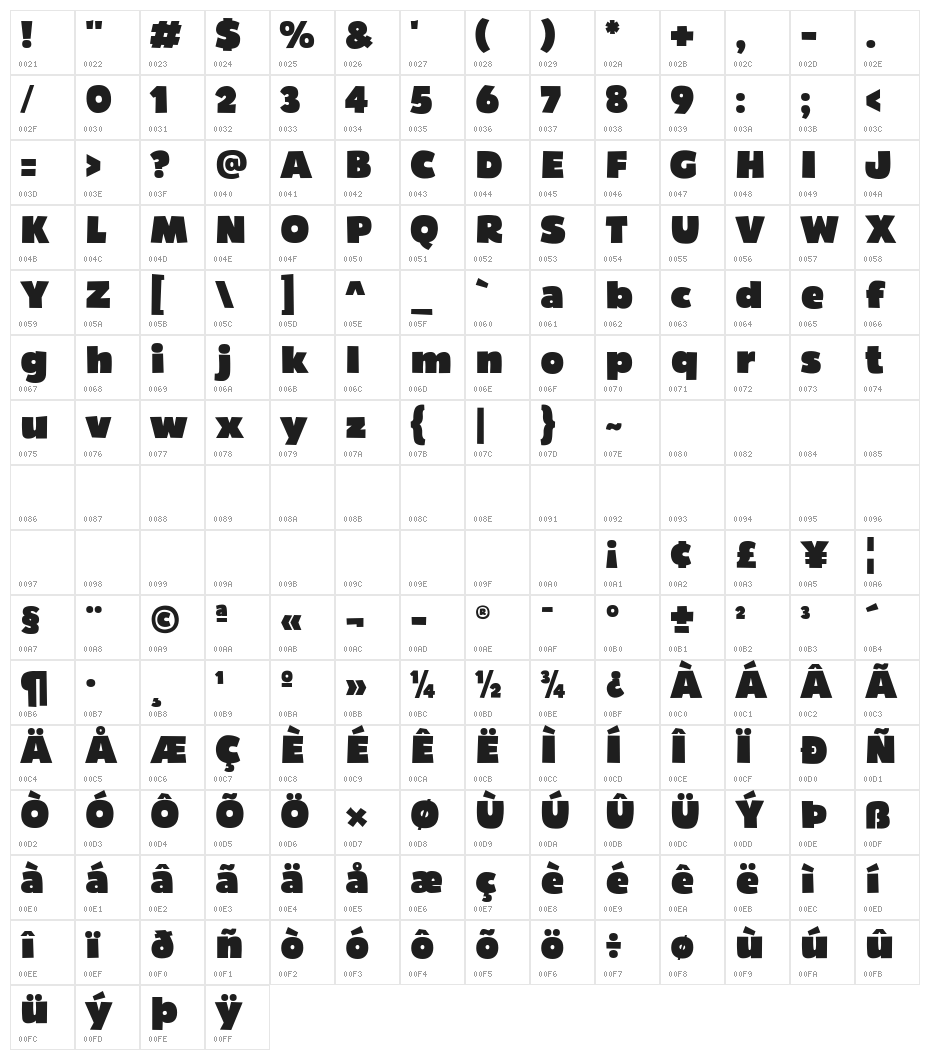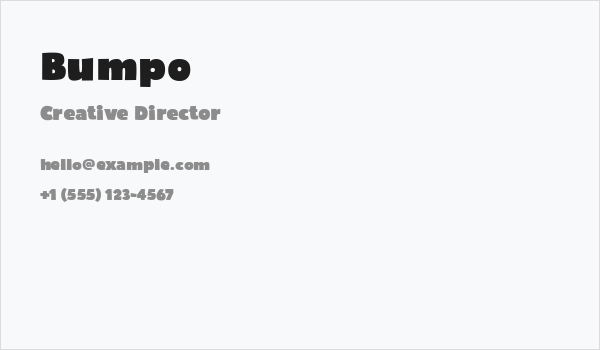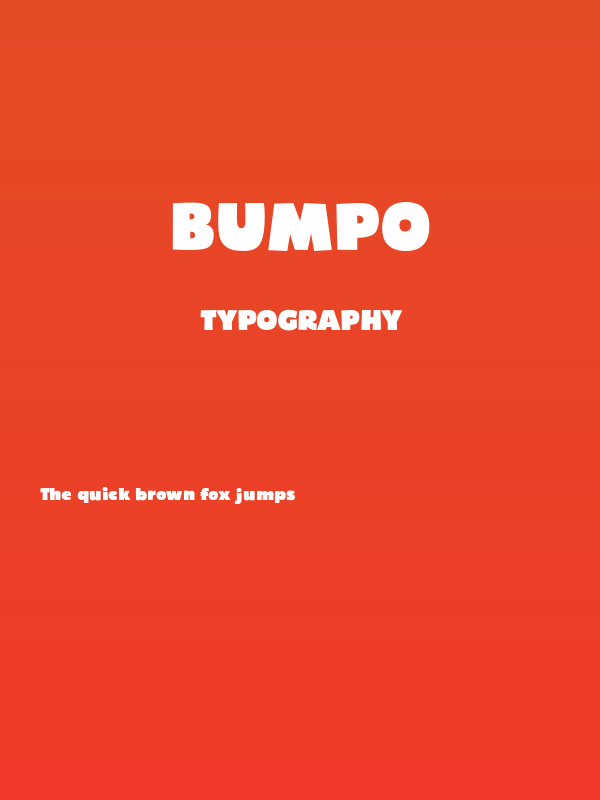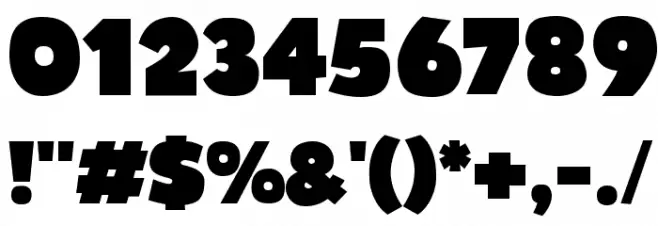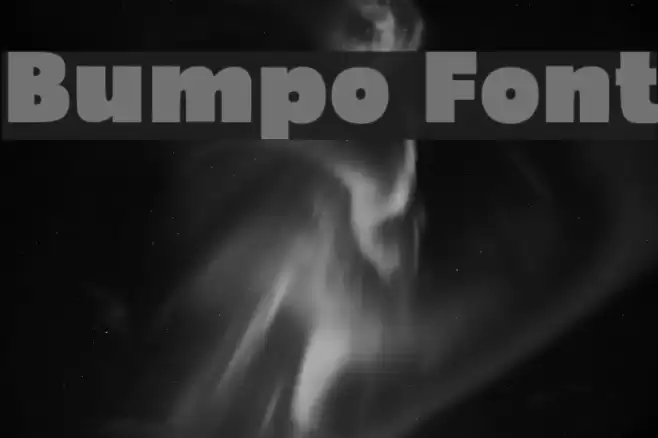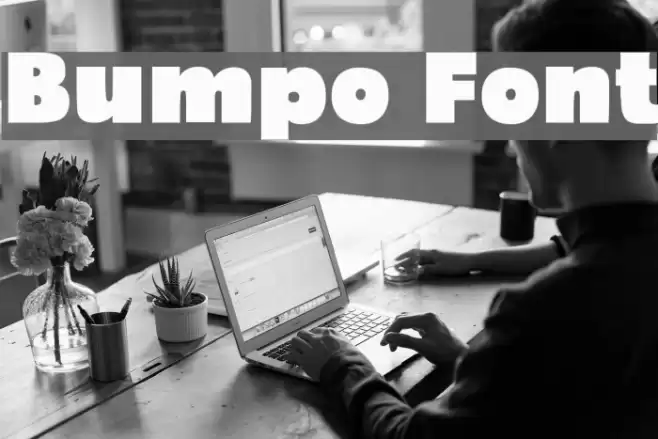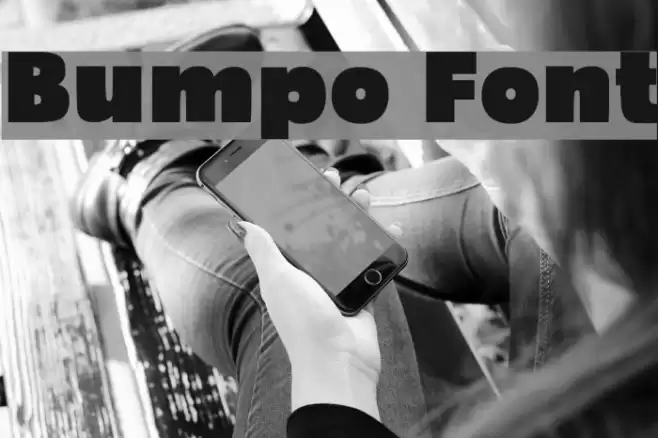
Bumpo Font
Bumpo Description
This font features bold, rounded characters with a strong presence, making it ideal for attention-grabbing headlines and titles. The uppercase and lowercase letters maintain a consistent weight, contributing to a cohesive and impactful design. The numerals and special characters are equally bold, ensuring uniformity across all text elements. Its playful yet assertive style is perfect for projects that require a touch of fun without sacrificing readability. The font's thick strokes and minimal contrast make it highly legible even at smaller sizes, while its wide character spacing adds to its distinctive appearance.
| Overall Style | Playful, Bold |
| Proposed Projects | Ideal for posters, logos, children's books, and branding materials that require a bold and playful touch. |